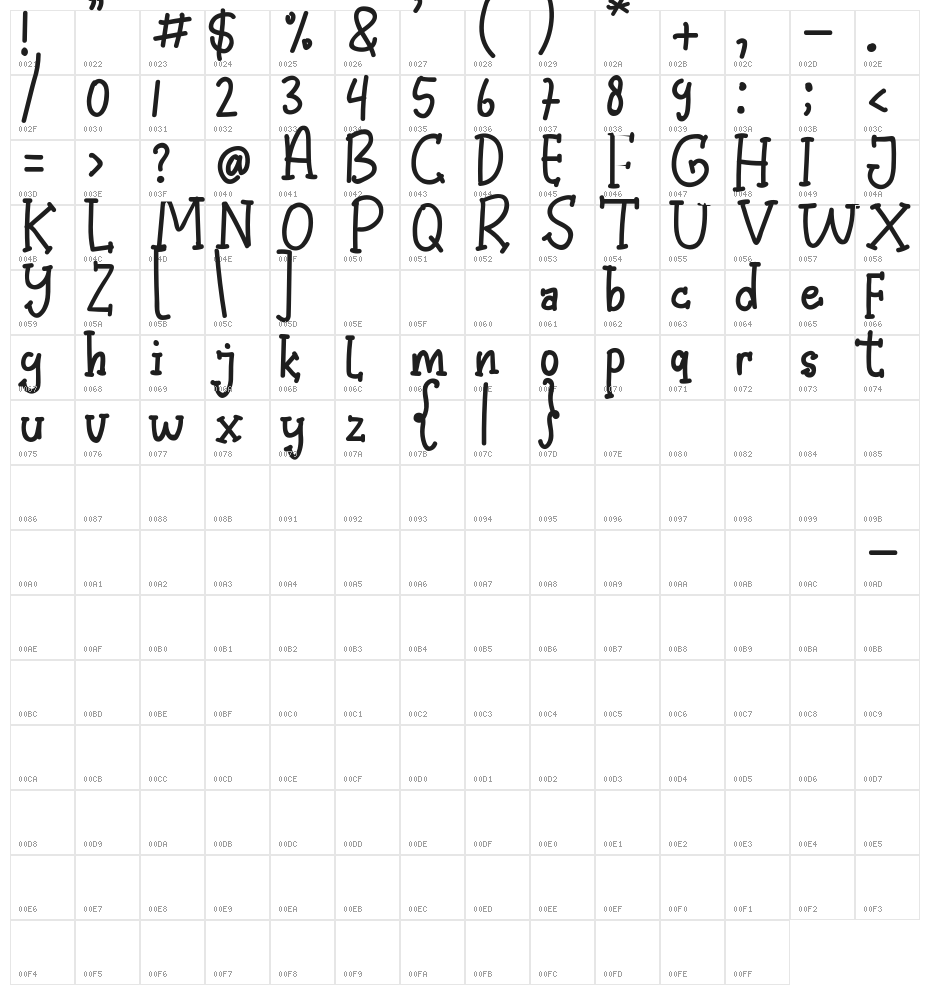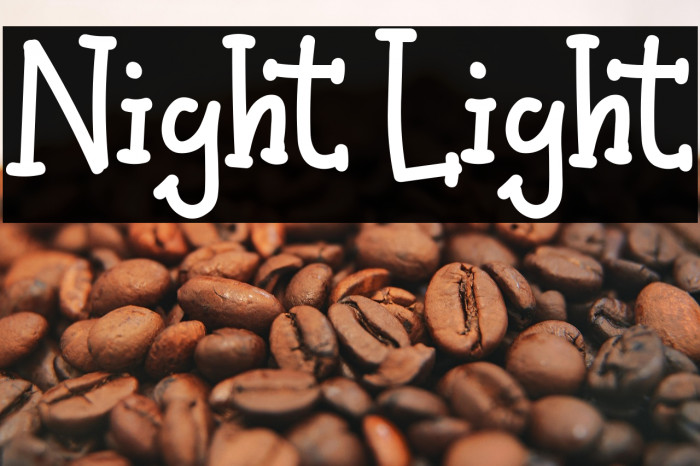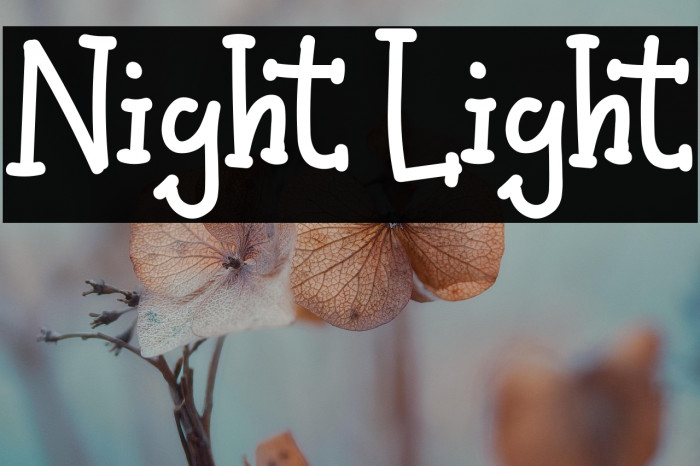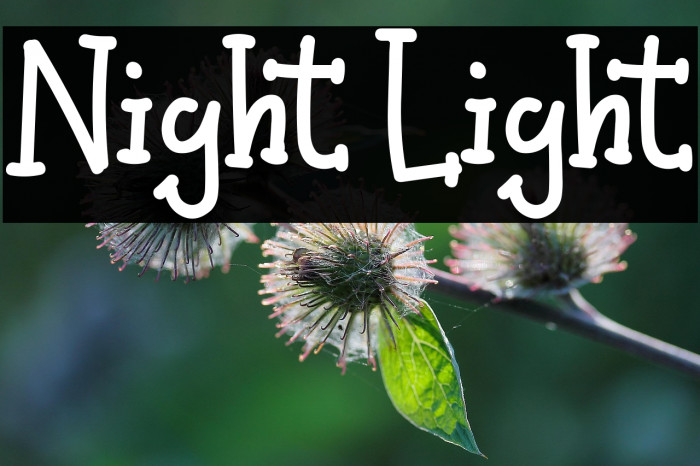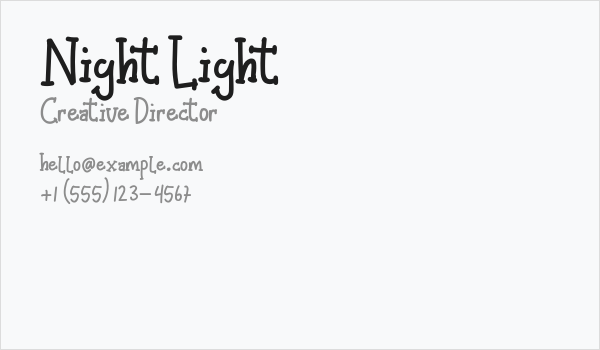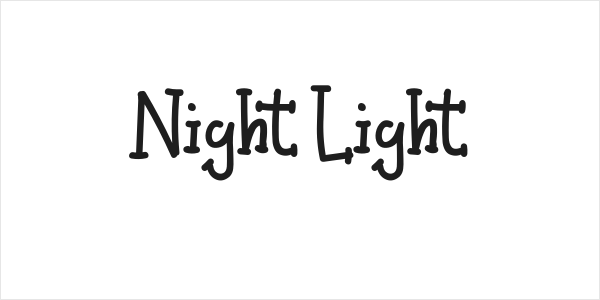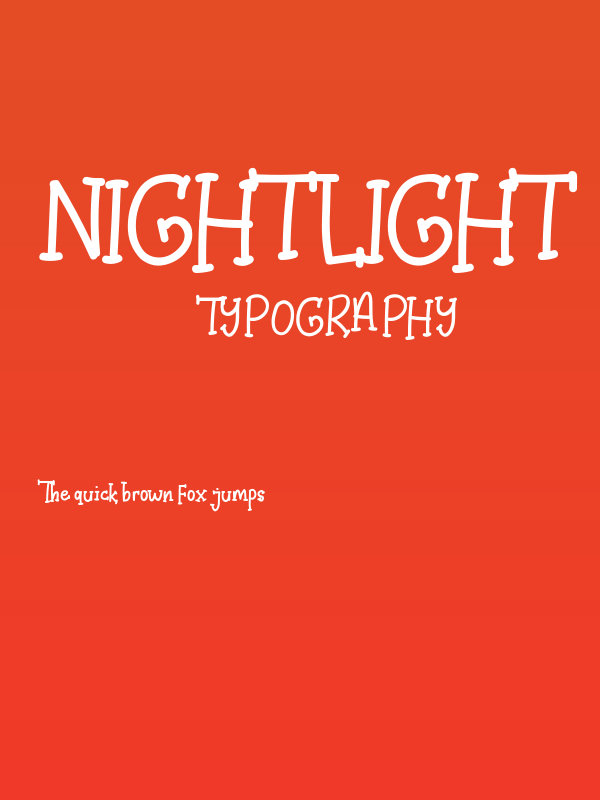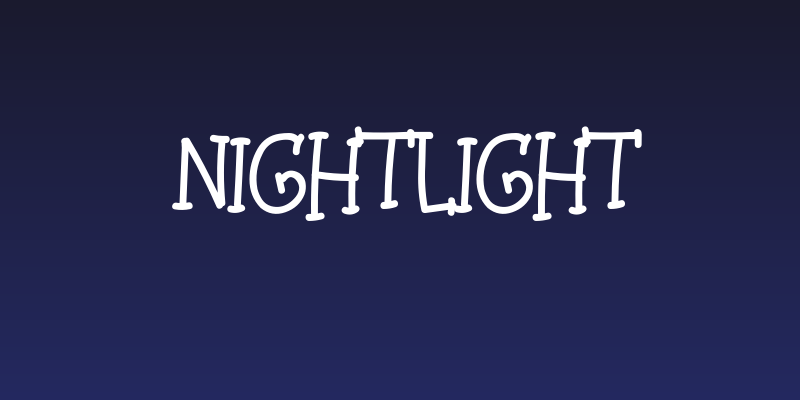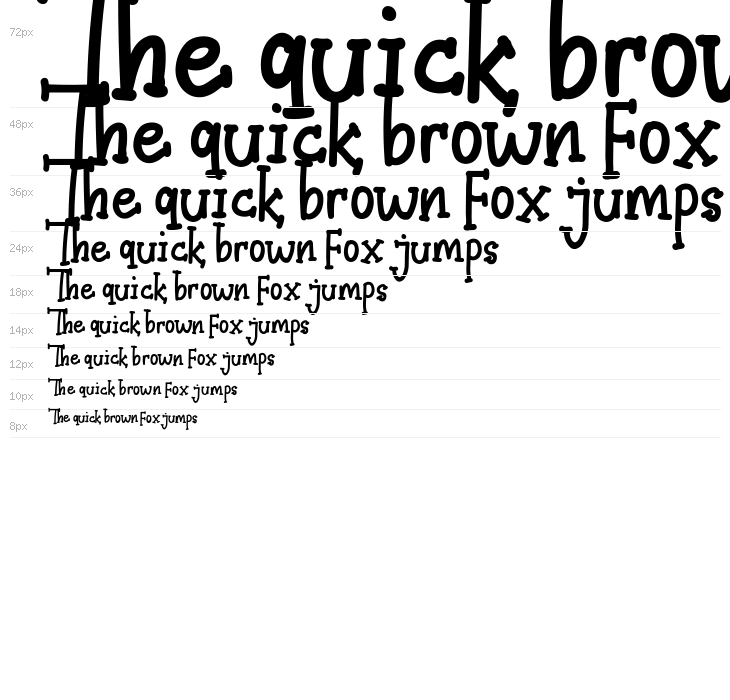
Night Light Font
Night Light Description
This font features a playful and whimsical style, characterized by its hand-drawn appearance. The letters have a casual, informal look with slightly irregular shapes and varying stroke widths, giving it a lively and dynamic feel. The uppercase and lowercase letters maintain a consistent style, with rounded edges and a slightly bouncy baseline. The numerals and special characters follow the same playful design, making the font versatile for creative projects. Its unique personality makes it suitable for designs that require a touch of fun and creativity.
| Proposed Projects | Ideal for children's books, playful branding, greeting cards, and creative posters. |